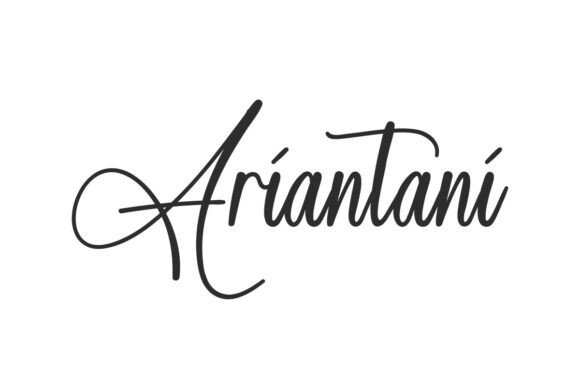
The Elegance of Ariantani Font: A Designer’s Dream Come True
I still remember the design project that made me fall in love with the Ariantani font. I was working on a luxury branding campaign for a high-end jewelry client, and I needed a font that exuded sophistication and elegance. After hours of searching, I stumbled upon Ariantani, and it was like a breath of fresh air. The fine, high-contrast strokes and smooth connections instantly caught my eye, and I knew I had found the perfect fit.
• ✨ Elegant and sophisticated design: Ariantani font is perfect for high-end branding, premium product packaging, and wedding stationery.
• ✅ Excellent legibility: Despite its luxurious style, the font remains highly legible, making it a great choice for body text.
• 🎉 Dynamic flow and beautiful swashes: The font features elegant swashes and stunning starting and ending terminals that add a touch of drama to any design.
• 🔍 Vast set of alternates and ligatures: With a wide range of alternates and ligatures, designers have the freedom to create unique and custom-looking headlines and logos.
• ⚠️ Steep learning curve: With so many alternates and ligatures, it may take some time to get familiar with the font’s features.
• 🤔 Not suitable for body text in small sizes: While the font is legible, it’s best used in larger sizes to showcase its elegance.
The Story Behind Ariantani Font
Ariantani font was designed by a team of skilled typographers who aimed to create a modern, elegant script font that would meet the needs of luxury brands and designers. Inspired by traditional calligraphy, the font features a unique blend of classic and modern elements, making it perfect for high-end branding and creative projects.
What is the best way to use Ariantani font? Ariantani font is best used for high-end branding, premium product packaging, wedding stationery, and any design that needs to communicate quality and genuine craftsmanship.
Is Ariantani font suitable for body text? While Ariantani font is legible, it’s best used in larger sizes to showcase its elegance. For body text, consider using a more traditional font.